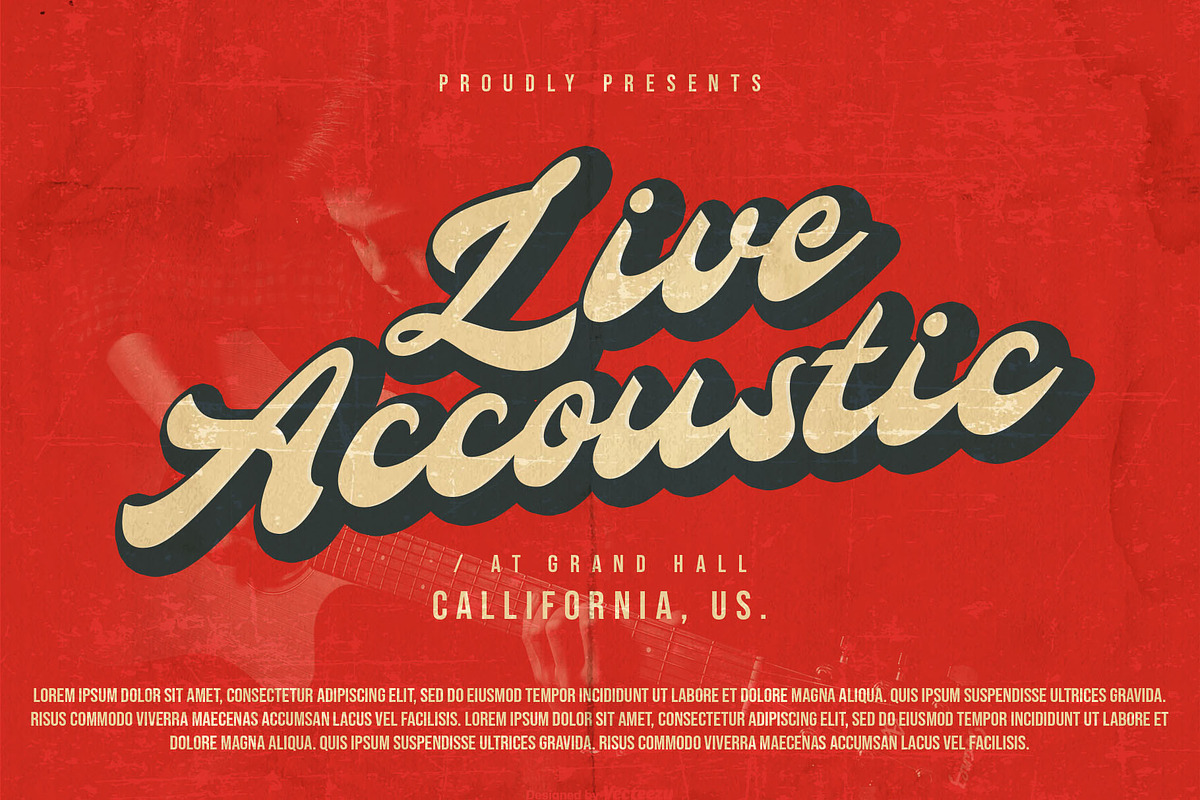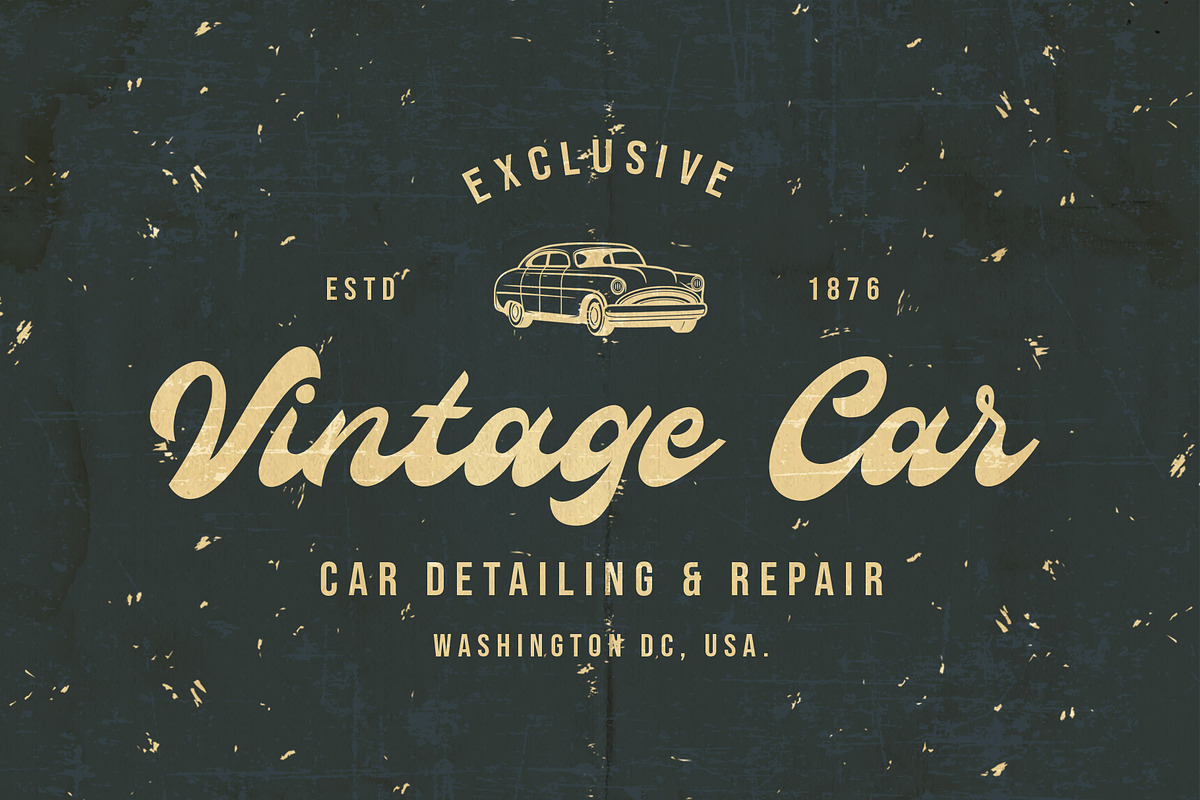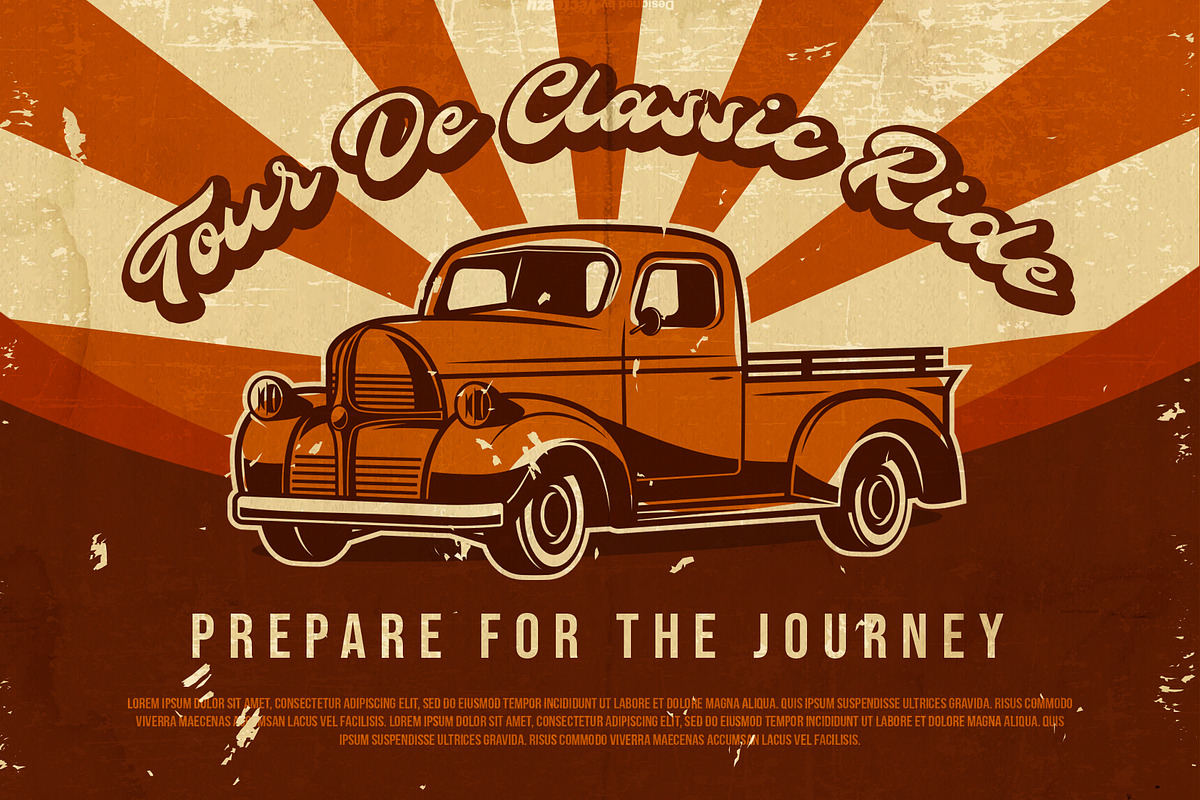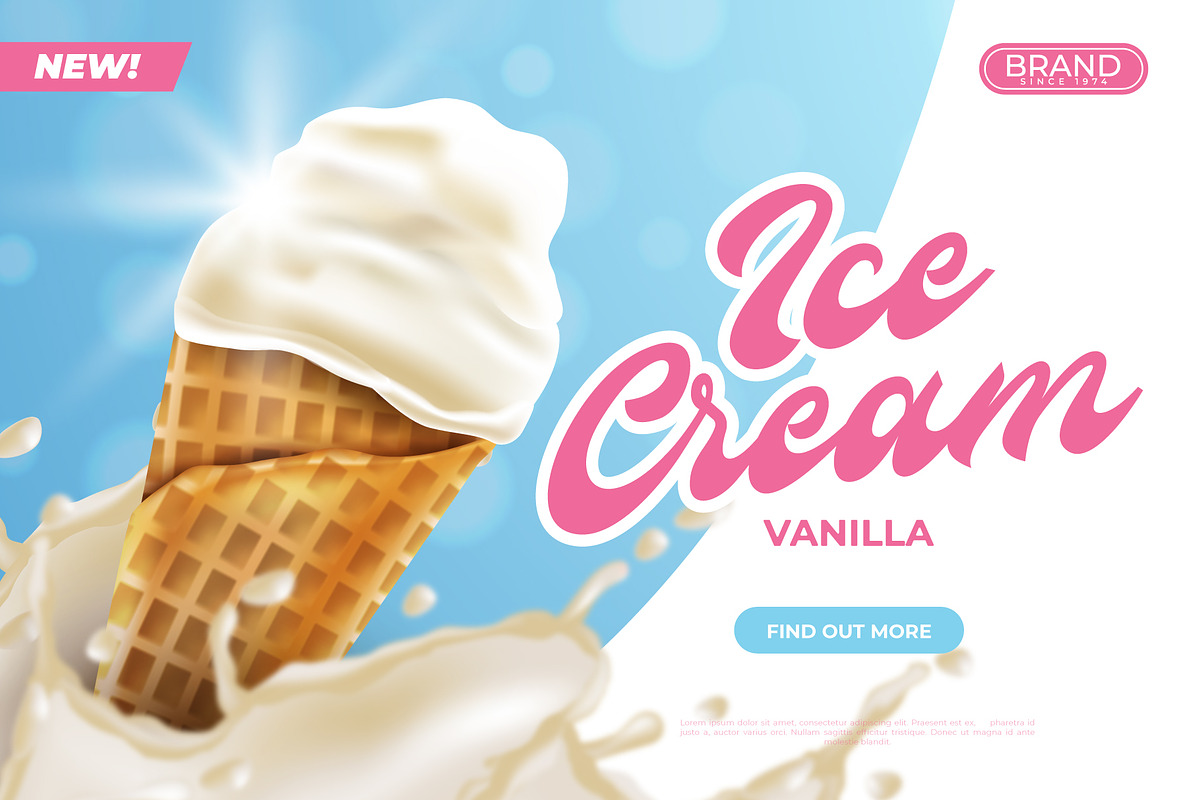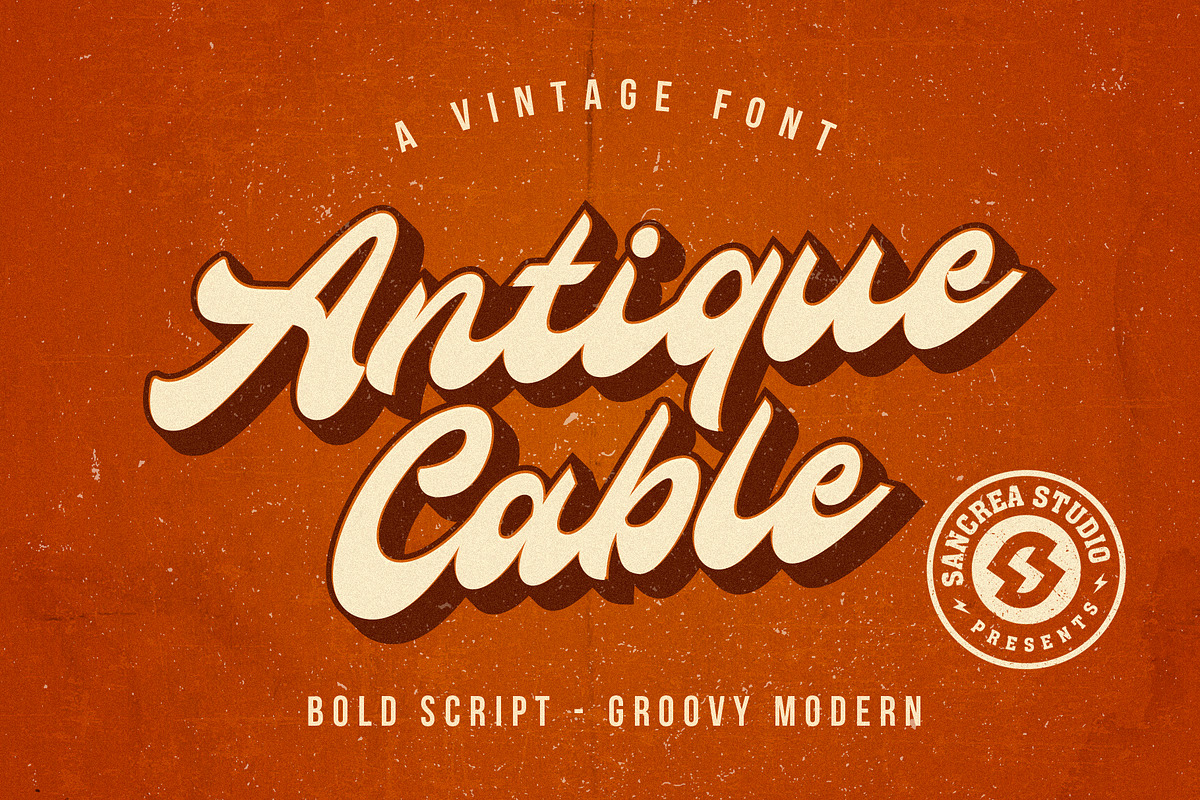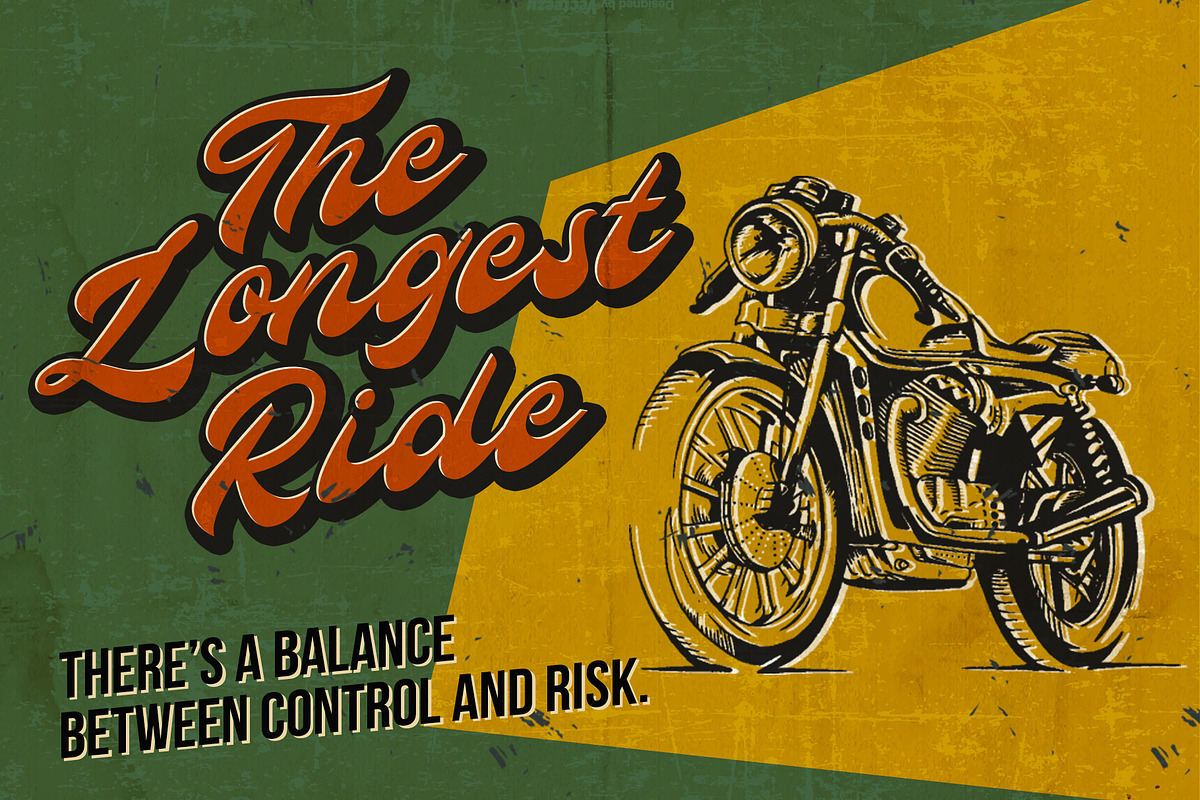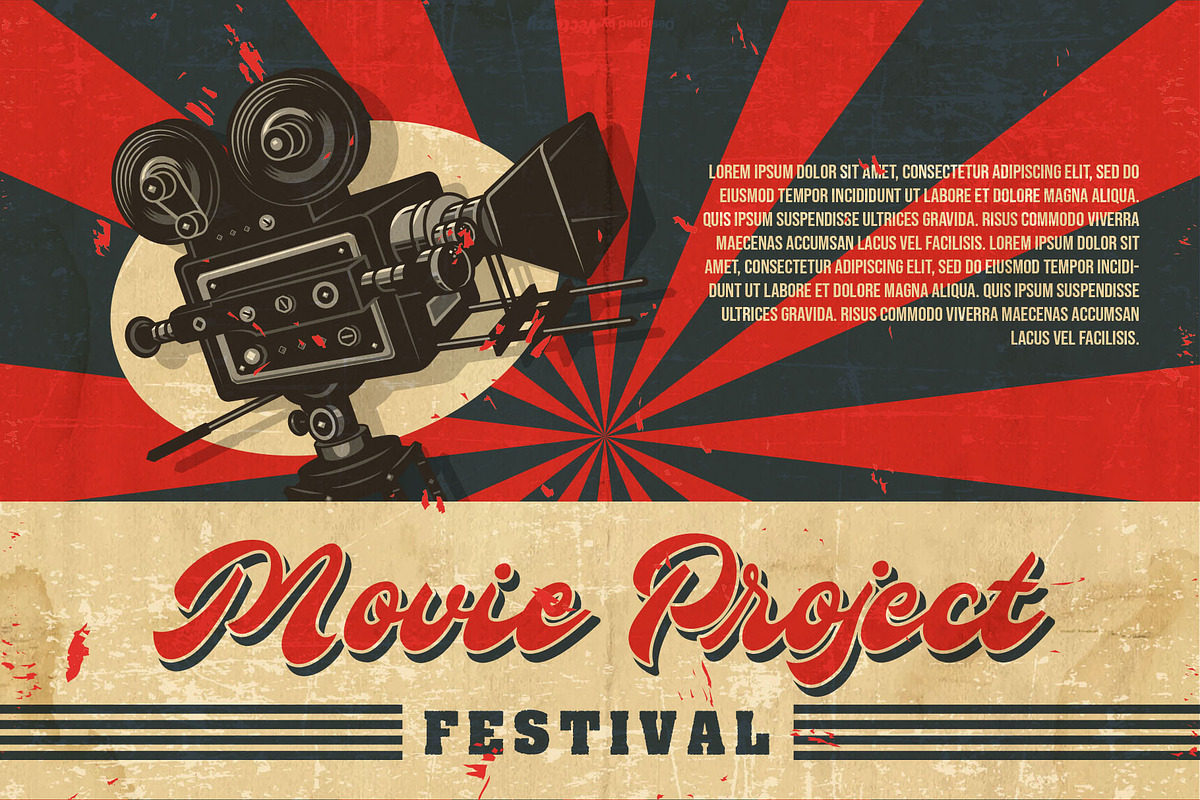
Antique Cable | Bold Script
Antique Cable Retro Script inspired from retro style 70's and perfect for logos, handwritten quotes, product packaging, header, poster, merchandise, social media & greeting cards.